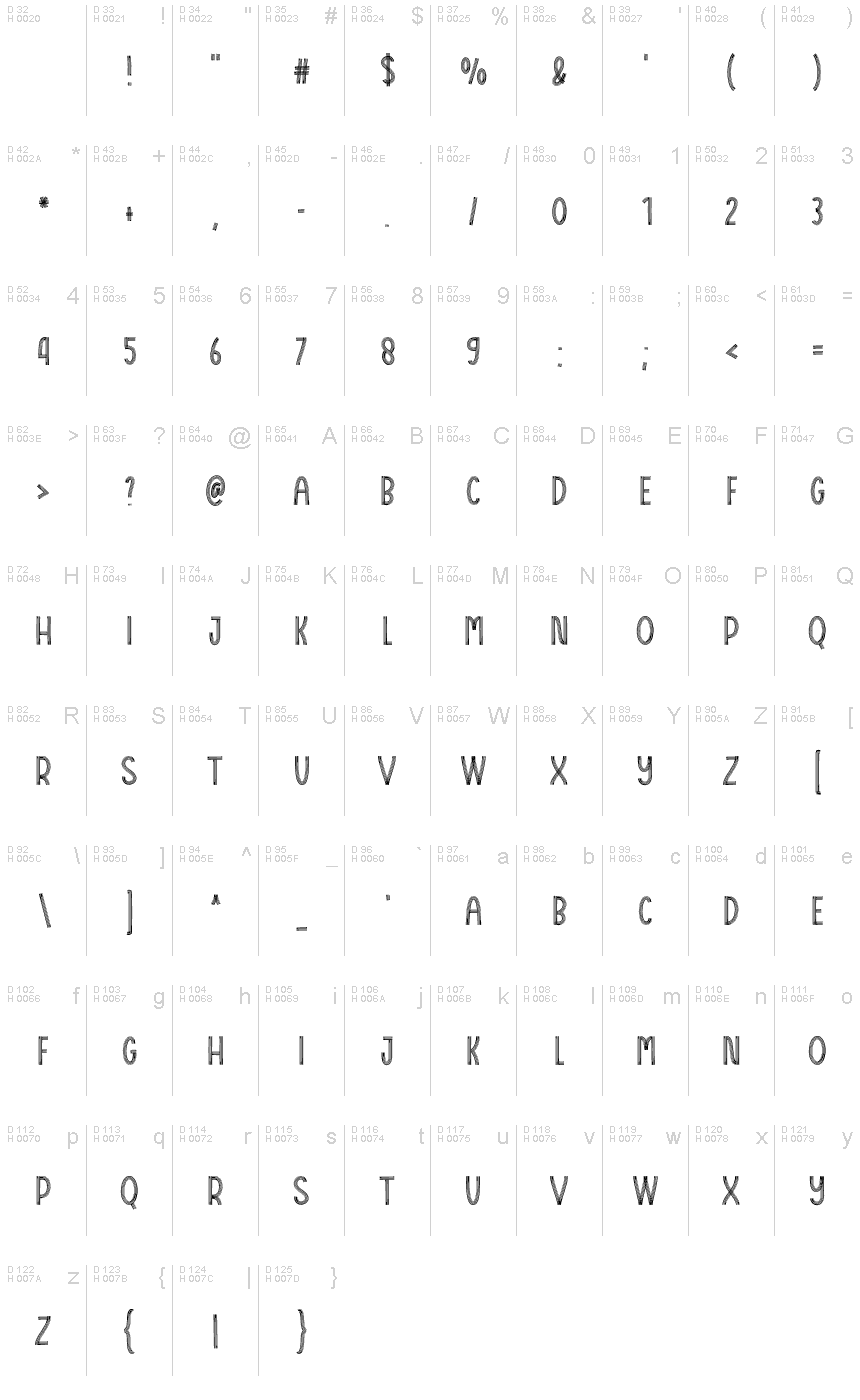
Christmas Eve Bells
Christmas Eve Bells, a distinctive creation by Scratchones, stands as a celebration of the festive spirit through typography. This display font boasts an enchanting decorative style that captures the magic and anticipation of holiday nights. With its semi-light weight and condensed width, it exudes an air of whimsical charm while maintaining readability.
The aesthetic appeal of Christmas Eve Bells lies in its ability to marry elegance with playfulness; each character is crafted to conjure images of jingling bells and winter wonderlands. Its suitability for diverse creative projects is undeniable— from holiday greeting cards to themed advertising campaigns, this font has the potential to infuse your designs with a touch of seasonal joy without overwhelming the senses.
Embrace the allure of Christmas Eve Bells for projects that demand a touch of festivity paired with refined design sensibility.